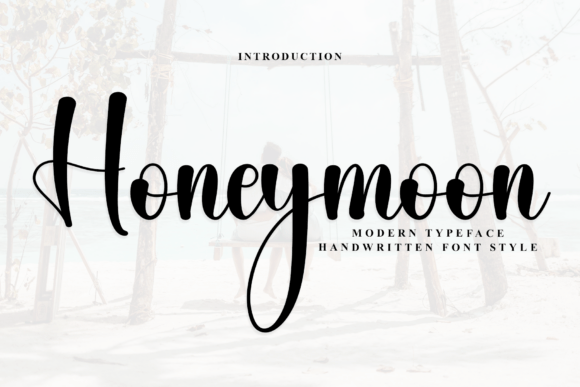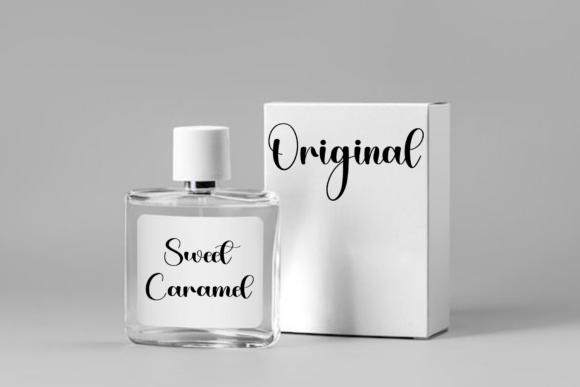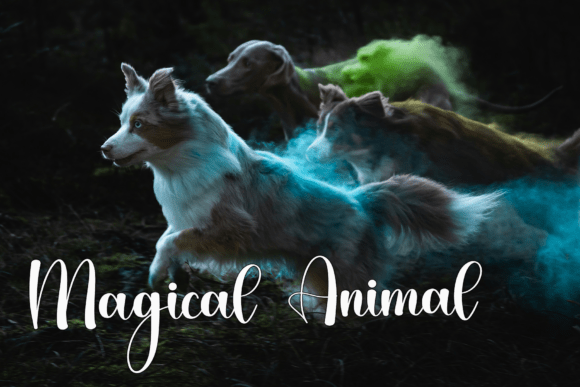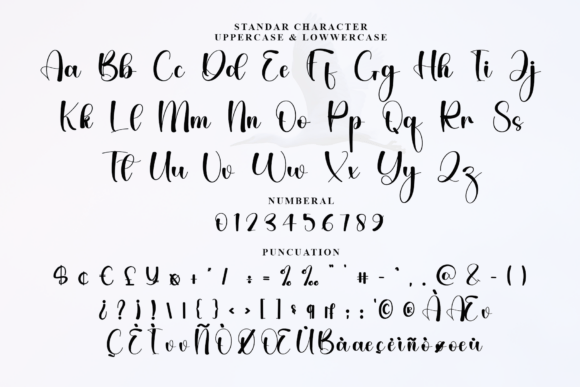
Honeymoon Font
About the Honeymoon Font
The Honeymoon Font offers a perfect balance of form and function for your design needs. Honeymoon is a sweet and cursive handwritten font. This gentle font will look gorgeous on a variety of design ideas. It will add a joyful and romantic touch to each of your projects! Perfectly fit for branding, logo, wedding things, greeting cards, fashion, lookbook, marketing promotion, and any time you want your design to look fancy and elegant but still casual.
Honeymoon’s delicate cursive style excels in headlines, short text blocks on invitations or greeting cards, and logo design where a romantic, handwritten feel is desired. It’s particularly well-suited for branding projects related to weddings, fashion, beauty, and artisanal products. Avoid using Honeymoon for large bodies of text or UI elements; its low readability makes it unsuitable for lengthy content or interactive applications.
The font’s inherent softness pairs beautifully with clean sans-serif fonts like Lato or Open Sans for a balanced contrast. For a more luxurious feel, consider pairing it with a classic serif like Garamond or a subtly geometric sans-serif such as Montserrat. Avoid pairing it with other script fonts, as this can create visual clutter.
Honeymoon projects an overall romantic and friendly personality, conveying a sense of warmth and approachability. Its delicate forms and gentle curves make it ideal for conveying a message of intimacy and elegance.
Honeymoon Font Usage Examples
Honeymoon Font Example